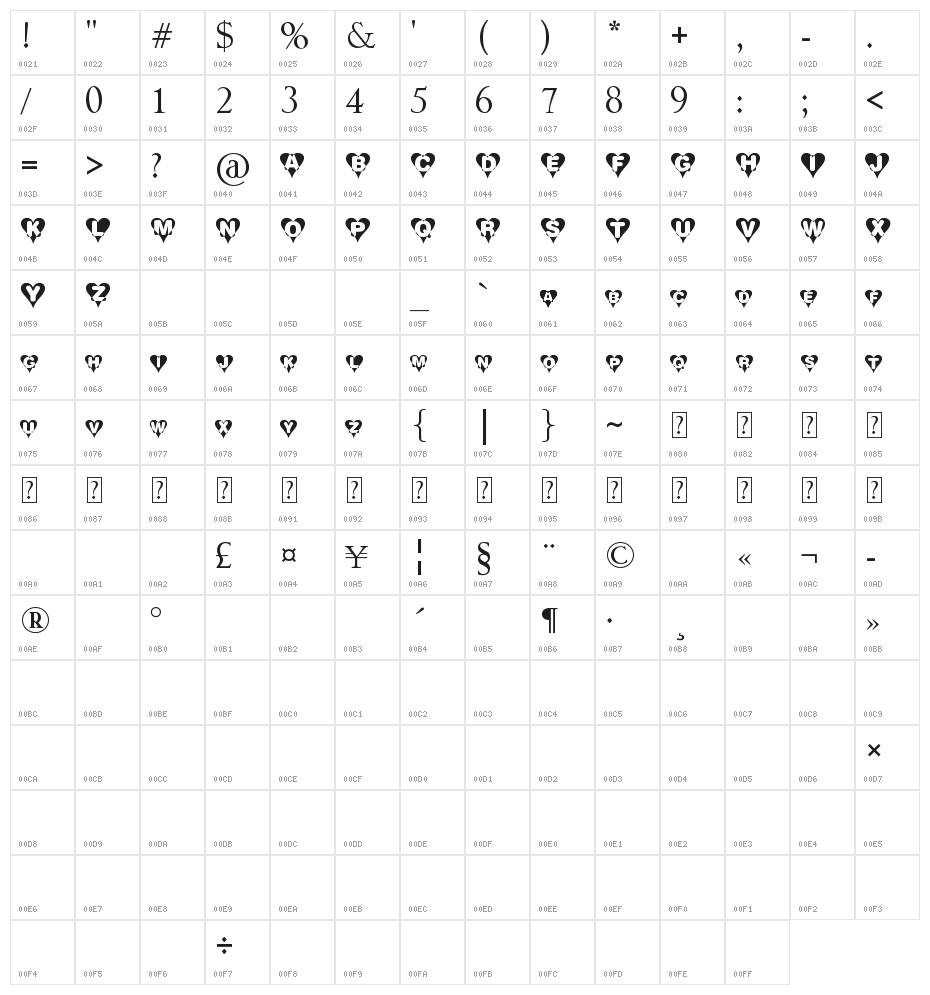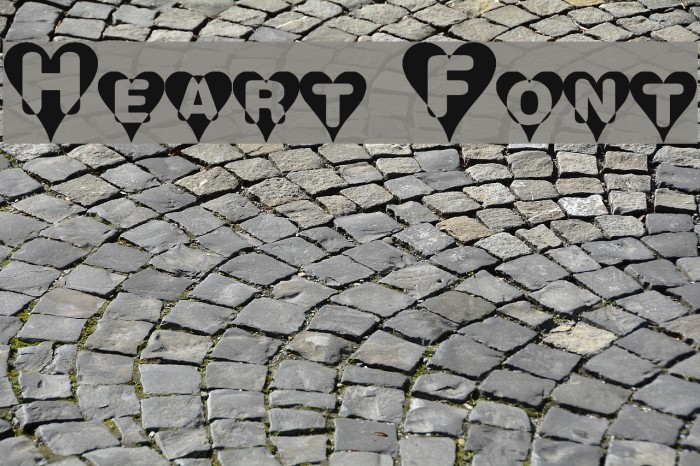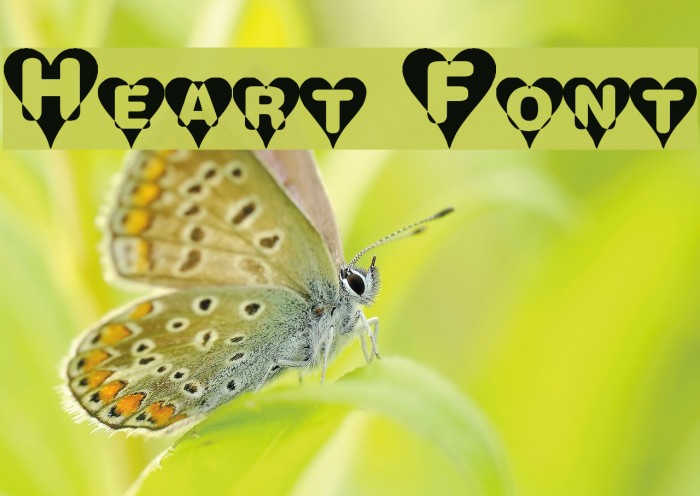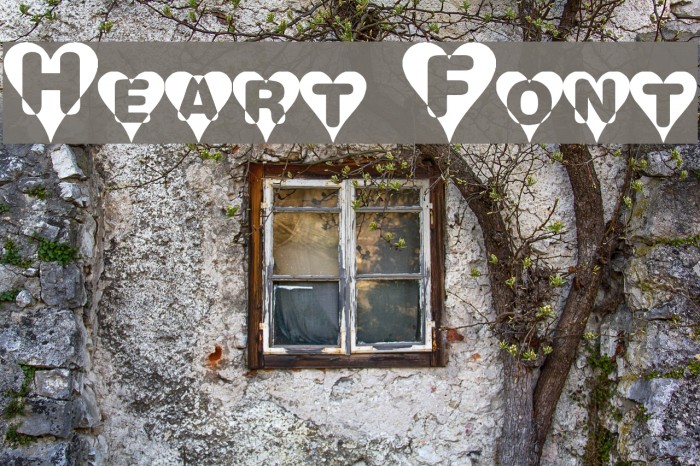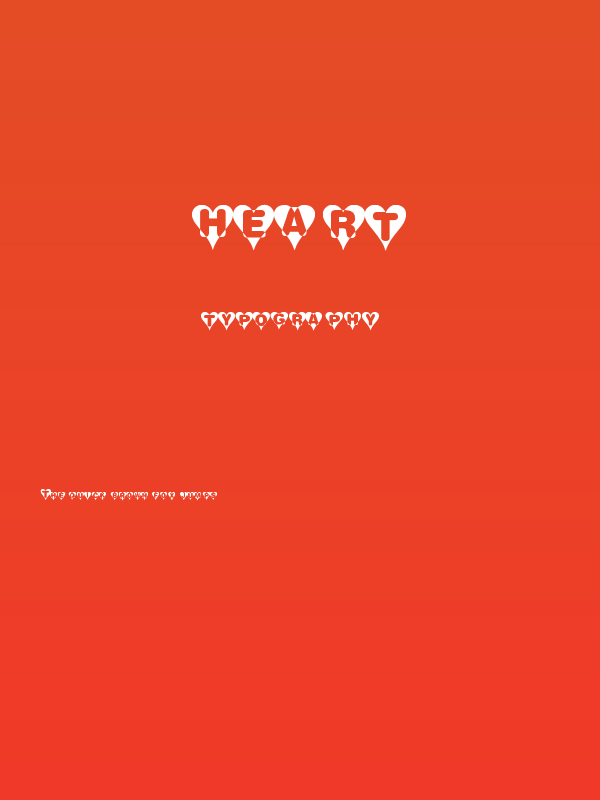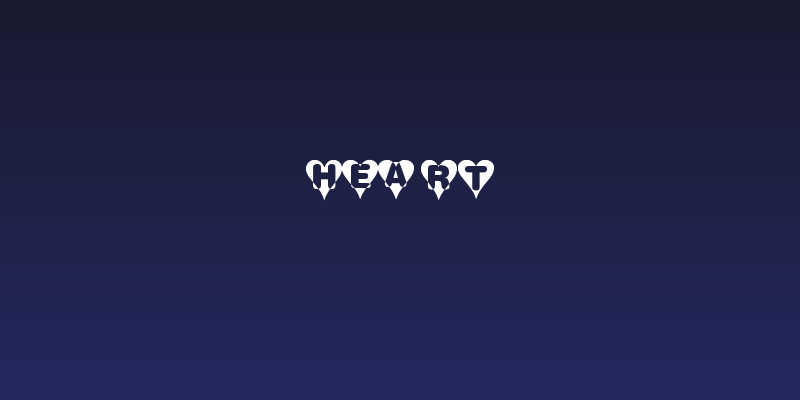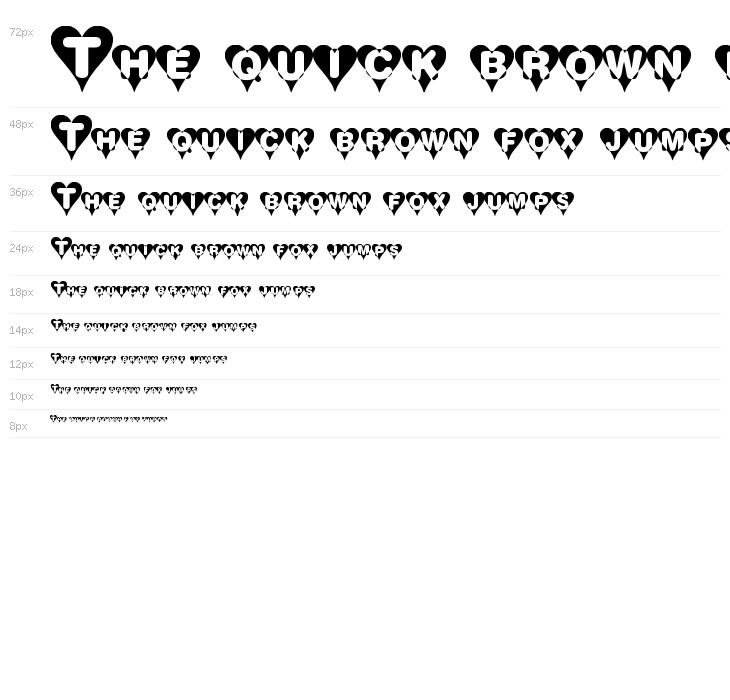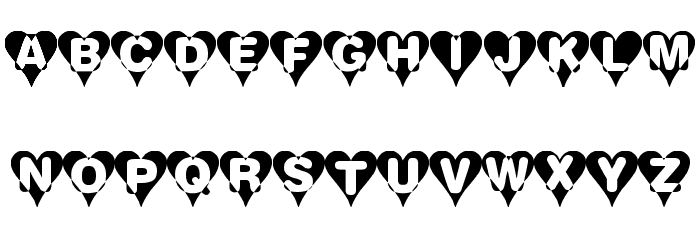
Heart Font
Heart Description
This decorative font features uppercase letters encased within heart shapes, creating a playful and romantic aesthetic. The letters are bold and stand out against the heart backdrop, making them ideal for attention-grabbing designs. The numbers and special characters are styled in a classic serif typeface, offering a contrast to the heart-encased letters. This combination of elements makes the font versatile for various creative projects.
| Overall Style | Playful, Romantic |
| Proposed Projects | Ideal for Valentine's Day cards, wedding invitations, romantic event posters, and playful branding materials. |